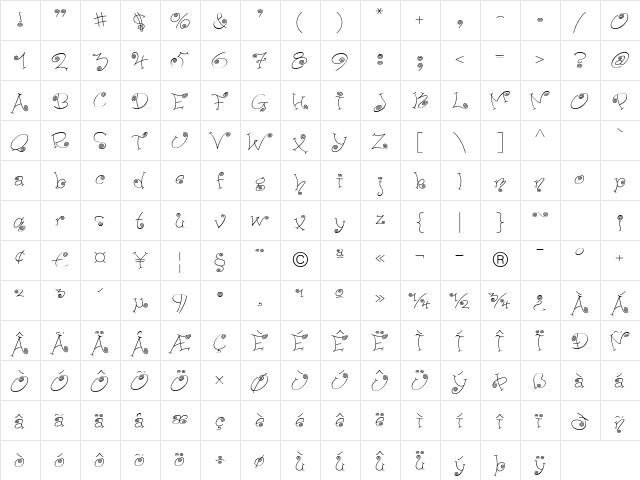
Paisley ICG 01 Regular Font Preview
Paisley ICG 01 Regular
Paisley ICG 01 Regular Font Details
Design Context for Paisley ICG 01 Typeface
Paisley ICG 01 is a composed and adaptable typeface that performs quietly and consistently across a wide range of design contexts.